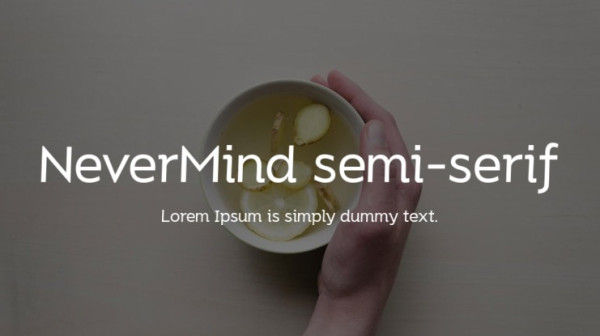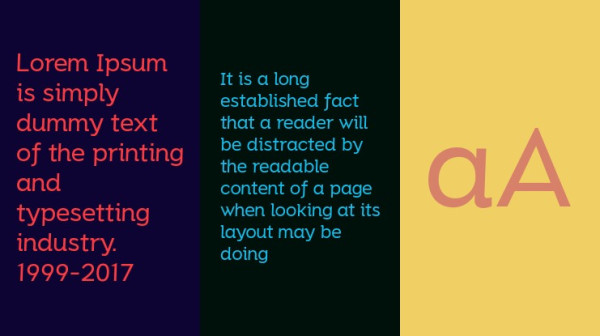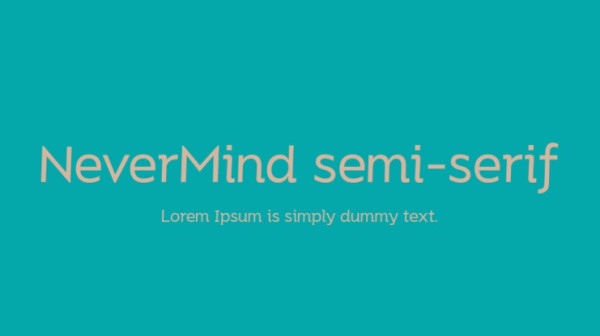
Nevermind Semi Serif
Nevermind Semi Serif Font by XMind Ltd is a geometric form-based sans serif font family. Modern and friendly, it can be used for all types of communication.
Nevermind Semi Serif is a part of Nevermind font family that currently includes one basic typeface and more than ten different fonts in various styles, including round, handwritten, serif, slab and so on.